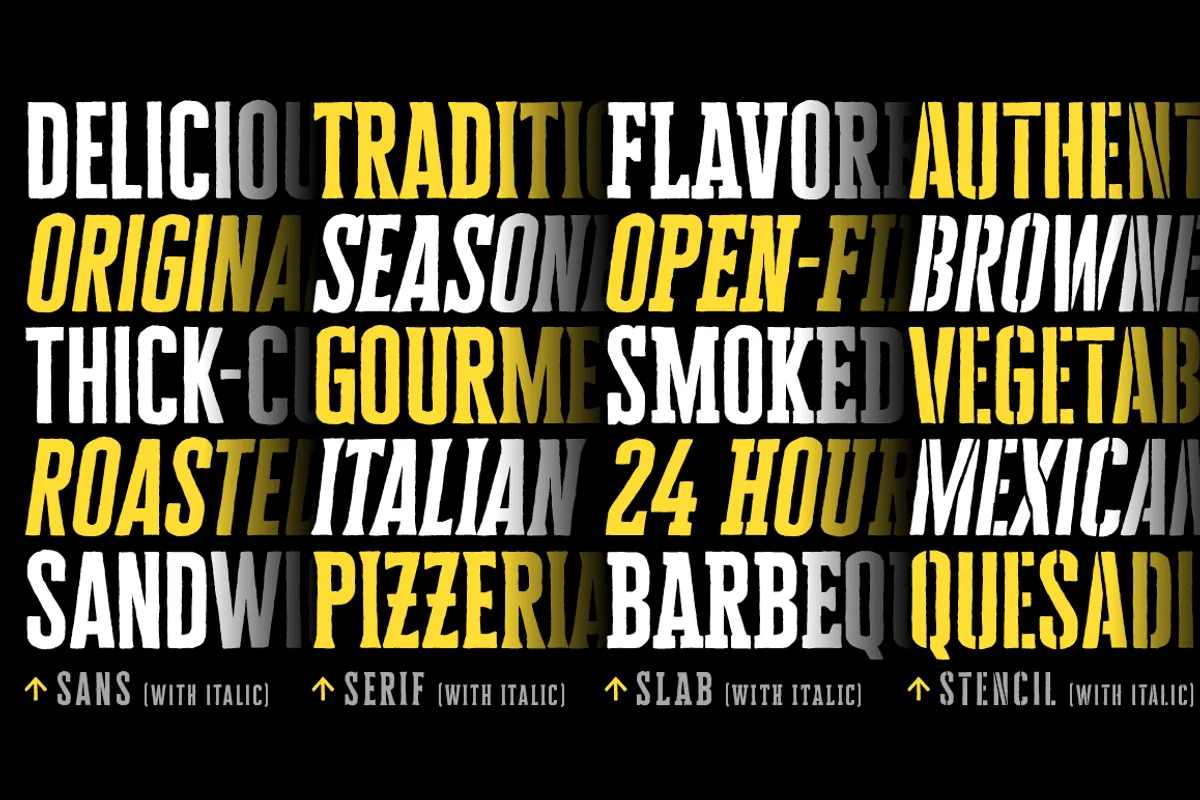
Cheddar Gothic is a hand drawn, 8 style type family, including Sans, Serif, Slab, and Stencil styles—each with Italics and includes matching catchwords and icons in each font. Great for a variety of uses: packaging, posters, t-shirts, stamps, branding, headlines, billboards, websites, etc. With accented characters for good Latin language support.
The handmade details become very evident when used large, while the steadily drawn forms maintain a good structure when set in small sizes. Using a nice, mid-range weight—that is neither too light nor too bold—it feels confident large and doesn’t close up small.
An all caps family, switch between upper and lowercase for alternates. Choose lowercase for a classic, condensed look; choose uppercase for a little more character, including extended crossbars and sliced terminals. The individual styles are all based on the same structure, so they work well to mix and match with each other to best fit the occasion.
The regular styles each carry their own flavor. Mix in their italics for added punch. Plus, the included catchwords and icons complement each of the type styles to quickly add variety and interest to your designs.